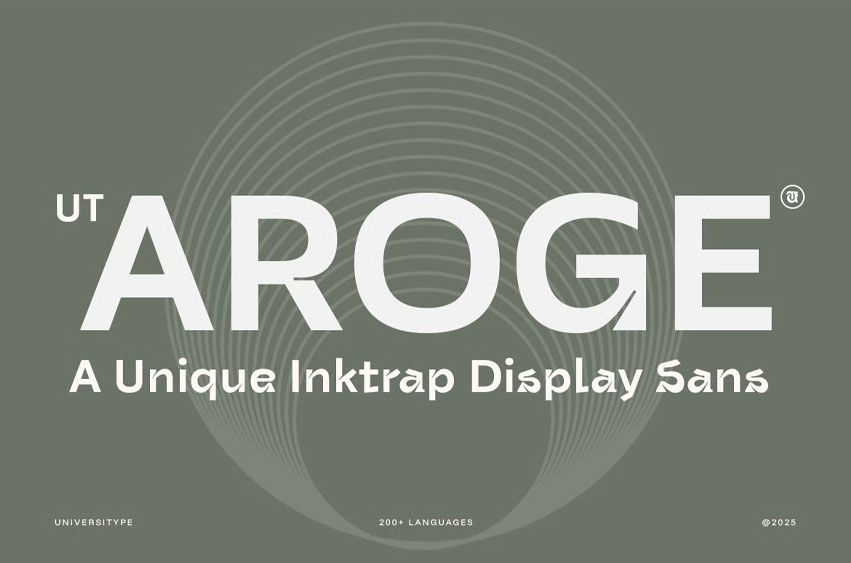
Aroge Font blends bold attitude with quiet, sculpted curves. Its ink-trap construction creates sharp–soft tension, delivering a display sans that feels modern, confident, and warmly handcrafted.
Perfect for standout headlines that stay balanced and approachable.
Key Features
• 400+ glyphs
• 30+ stylistic alternates
• Ink-trap detailing for an architectural, playful vibe
• Distinctive terminals for bold display moments
• Smooth spacing for readable compositions
• 200+ language support
• Branding & logo design
• Posters and bold editorial titles
• Packaging with strong character
• Art prints & experimental layouts
• UI/UX hero text
Inspiration
Designed from the tension between calm structure and sharp movement—Aroge captures rhythm, contrast, and a crafted sense of balance.
• Glyphs: 400+
• Alternates: 30+
• Features: ligatures, stylistic sets, ink traps, extended symbols